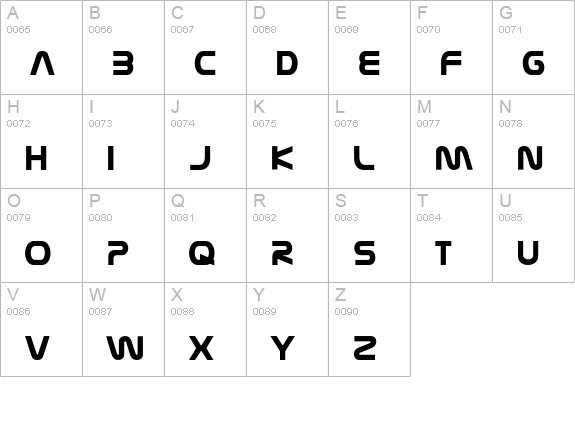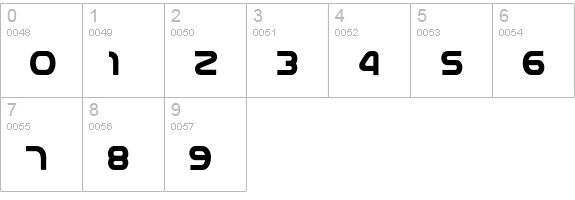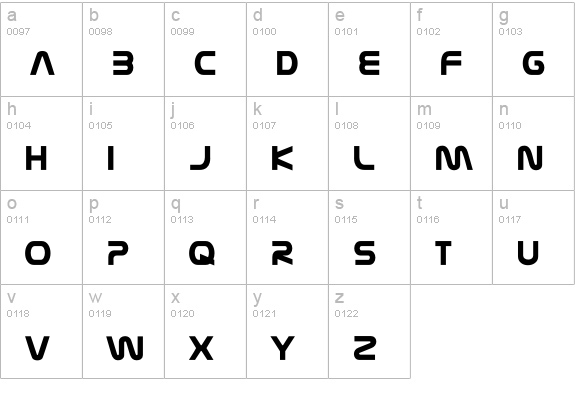
Nasalization font is a bold and futuristic typeface that exudes a modern and edgy vibe. Its geometric shapes and sharp edges give it a distinctive look that is perfect for making a statement in your designs. The font features strong lines and a sleek aesthetic that will add a touch of sophistication to any project. What makes Nasalization font even more appealing is that it is available for free download at FontsMarket.com. You can easily access this stylish font and use it for a variety of creative projects without any cost. Don't miss out on the opportunity to enhance your designs with the sleek and modern Nasalization font. Download it today and let your creativity shine!